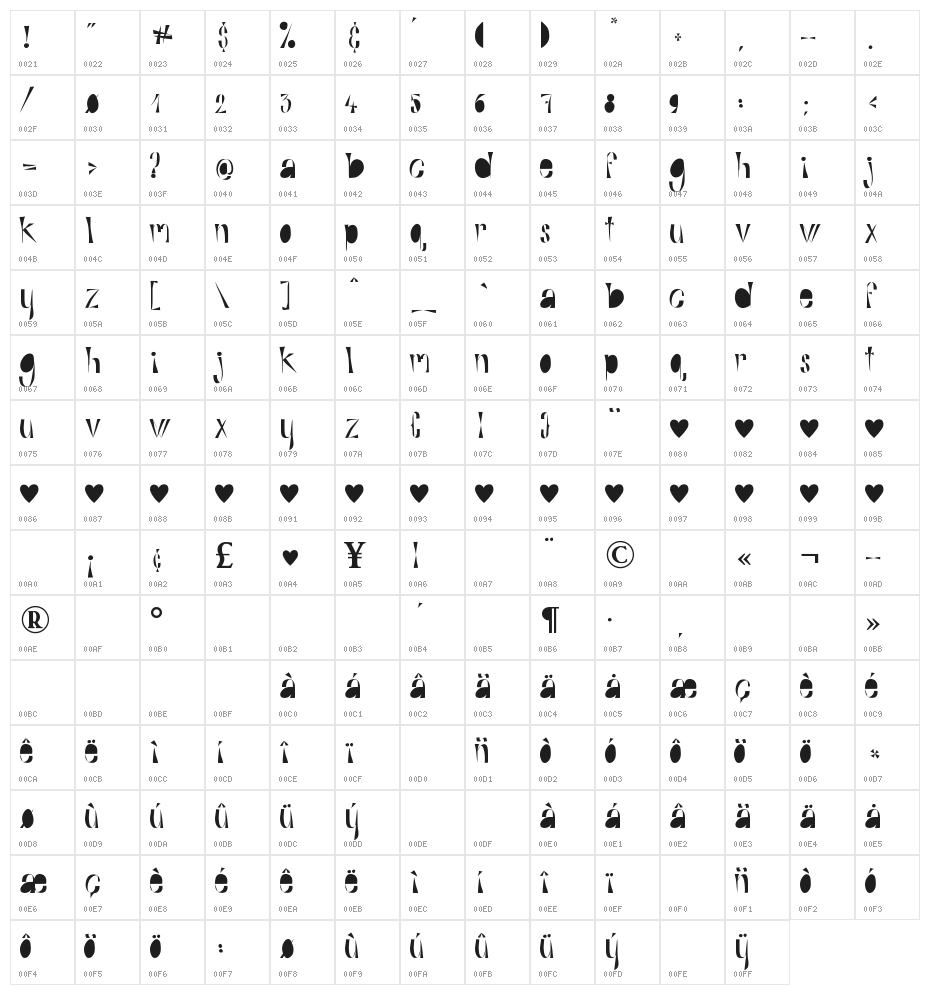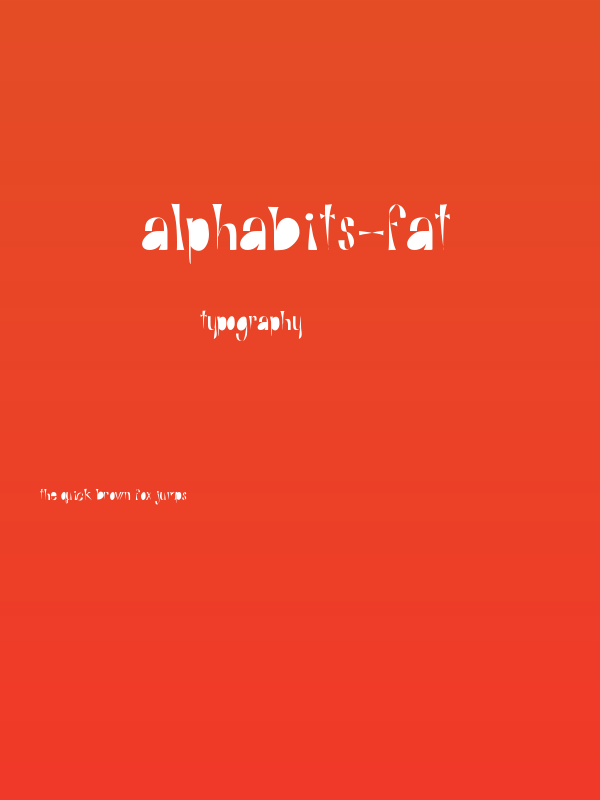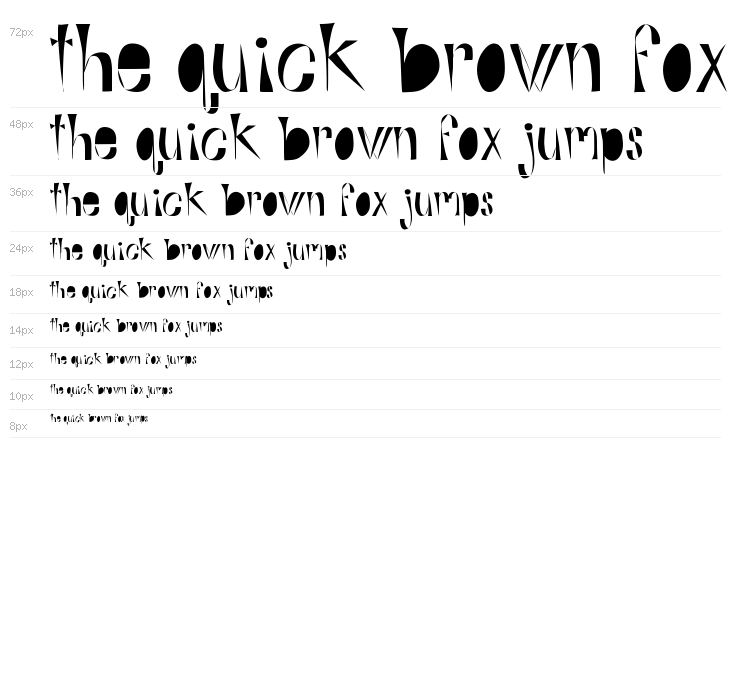
Alphabits-Fat Font
Alphabits-Fat Description
This font features a bold and playful design with exaggerated curves and sharp angles, creating a unique and eye-catching appearance. The letters are characterized by their thick strokes and high contrast between thick and thin lines, giving them a dynamic and energetic feel. The font maintains a consistent width across characters, contributing to a cohesive and balanced look. Its decorative style is evident in the whimsical shapes and creative forms of each letter, making it suitable for projects that require a touch of fun and creativity. The font's distinctiveness is further enhanced by its unusual character shapes, which add a sense of movement and flair.
| Proposed Projects | Ideal for children's books, playful branding, posters, and creative advertising campaigns. |